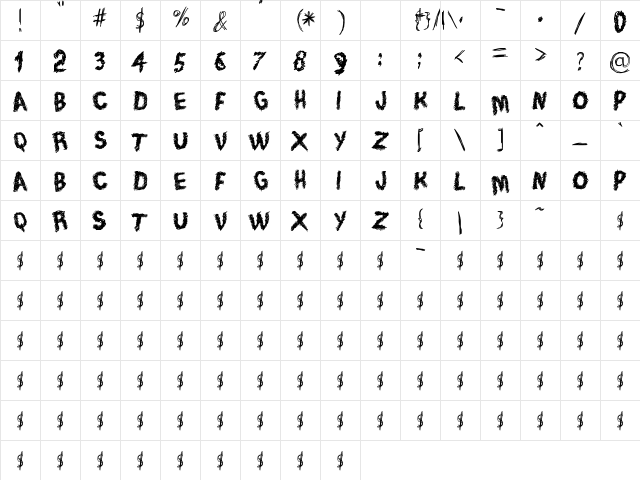
Trace of Rough Regular Free Font
Trace of Rough Regular
Designer: Galdino Otten
Design Context for Trace of Rough
Trace of Rough embraces imperfection - its rough, textured character adds raw authenticity to designs that want to feel lived-in and unconventional.
Pro Tip: Use Trace of Rough at larger sizes where the texture and irregularity of each letterform can be clearly seen - it loses its character at small sizes.